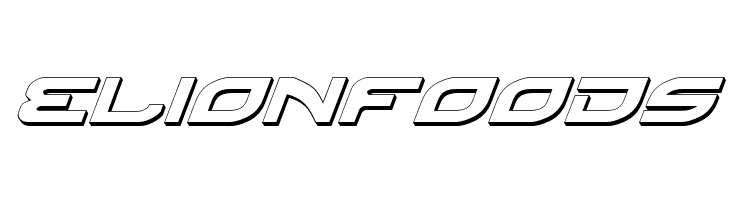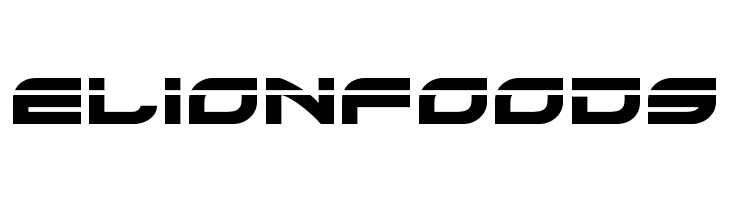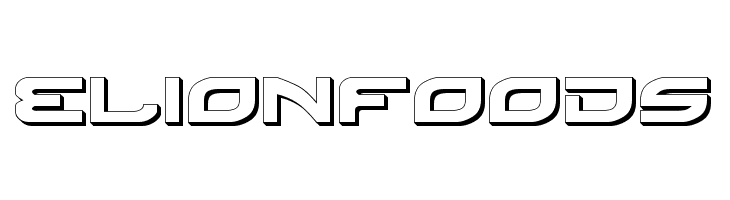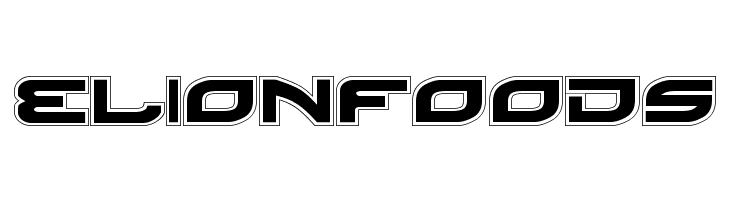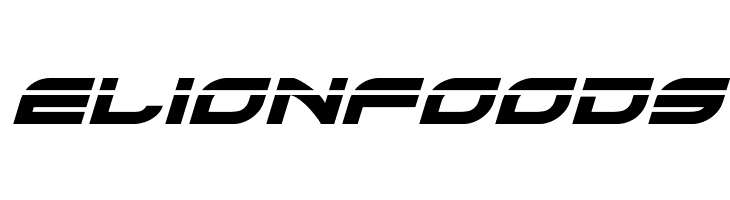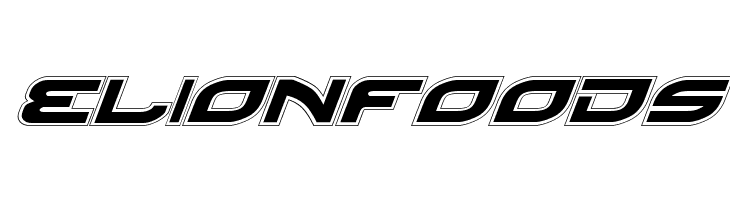
Battlefield Laser Font
A futuristic, bold font with geometric shapes and sharp angles.
Battlefield Bold Font
A bold, futuristic font with geometric, angular characters.
Battlefield Condensed Font
A bold, geometric, and condensed font with a futuristic style.
Battlefield Font
A bold, futuristic font with geometric shapes and sharp angles.
Battlefield Expanded Font
A futuristic, bold font with geometric and angular design.
Battlefield Bold Italic Font
Battlefield Pro Font
A bold, futuristic font with geometric shapes and sharp angles.
Battlefield Italic Font
Battlefield Rock Font
A bold, futuristic font with angular, geometric shapes.
Battlefield Expanded Italic Font
A bold, expanded, and italicized font with a futuristic and dynamic style.
Battlefield Shadow Font
A bold, futuristic font with a three-dimensional shadow effect.
Battlefield Laser Italic Font
A bold, italicized font with a futuristic and dynamic design.
Battlefield Condensed Italic Font
A bold, condensed italic font with a modern, dynamic style.
Battlefield Pro Italic Font
Battlefield Semi-Italic Font
A bold, italicized font with a modern, sporty aesthetic.
Battlefield Shadow Italic Font
A bold, italicized font with a futuristic shadow effect, perfect for dynamic designs.
Battlefield Halftone Italic Font
A bold, futuristic italic font with a halftone effect and dynamic design.
Battlefield Halftone Font
A bold, futuristic font with a halftone effect and geometric design.
Battlefield Leftalic Font
A bold, futuristic font with angular, slanted characters.
Battlefield 3D Italic Font